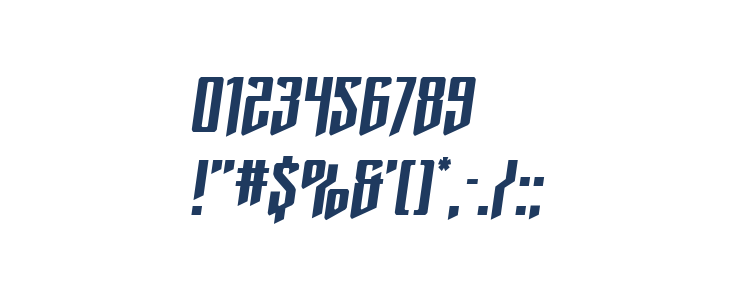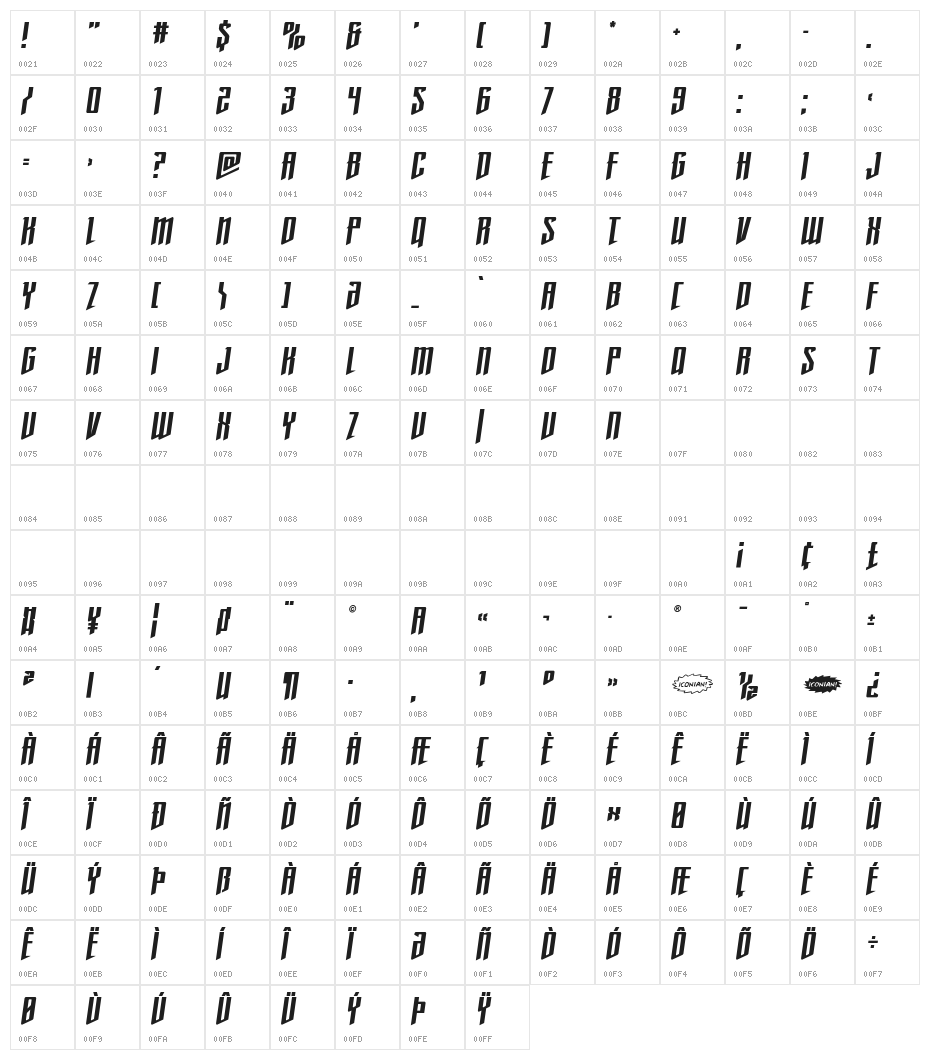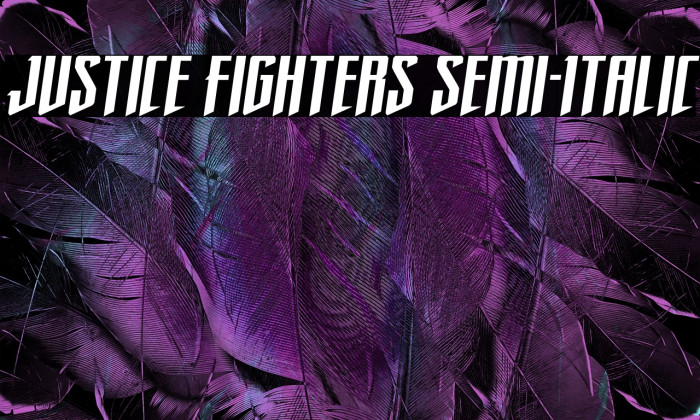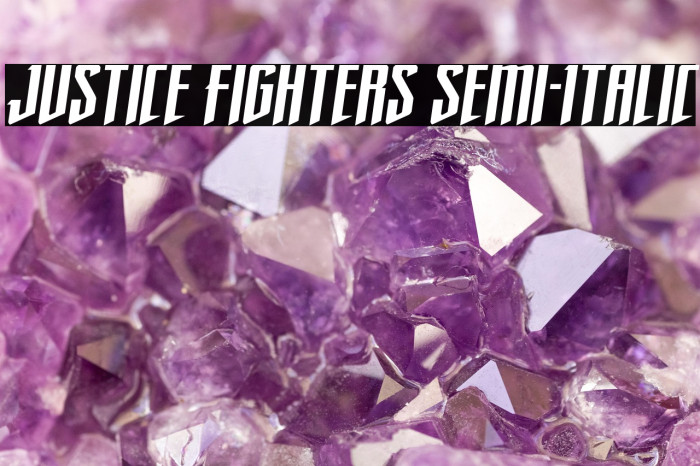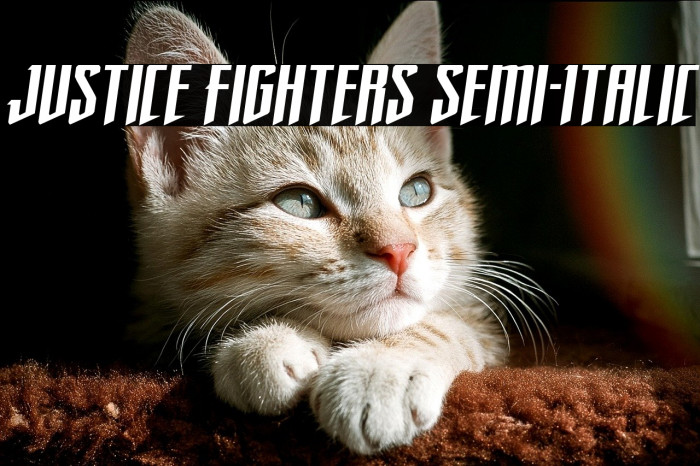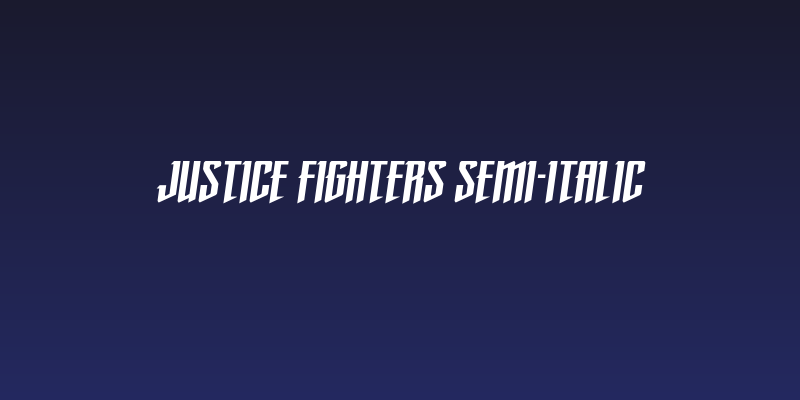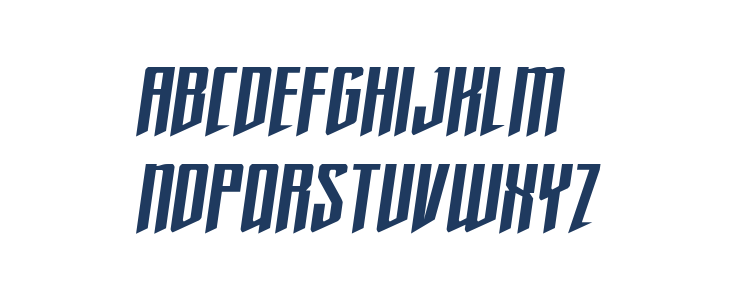
Justice Fighters Semi-Italic Font
Justice Fighters Semi-Italic Description
This font features a bold and dynamic style with a strong italic slant, giving it a sense of motion and energy. The characters are sharply angled with a condensed width, creating a compact and impactful appearance. The high contrast between thick and thin strokes adds to its dramatic flair, making it ideal for attention-grabbing designs. The uppercase and lowercase letters maintain a consistent style, while the numerals and special characters complement the overall aesthetic. Its unique design is suitable for projects that require a modern and edgy look.